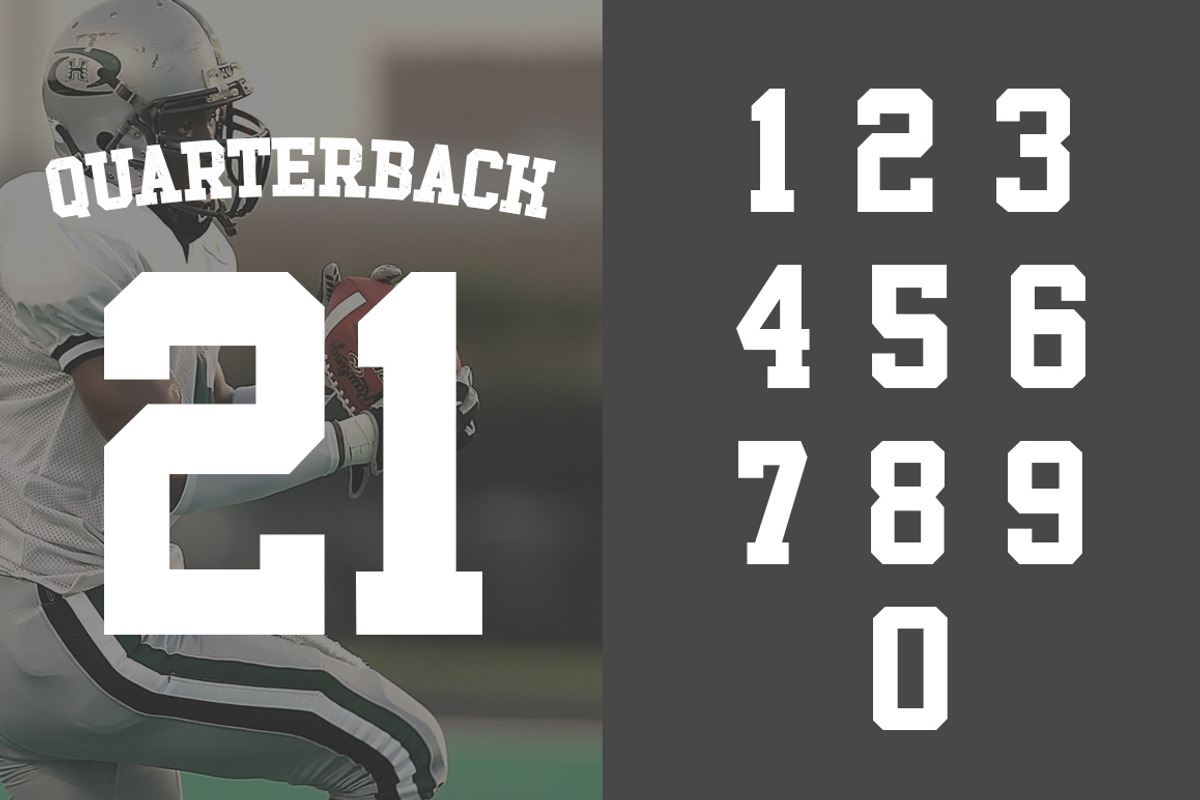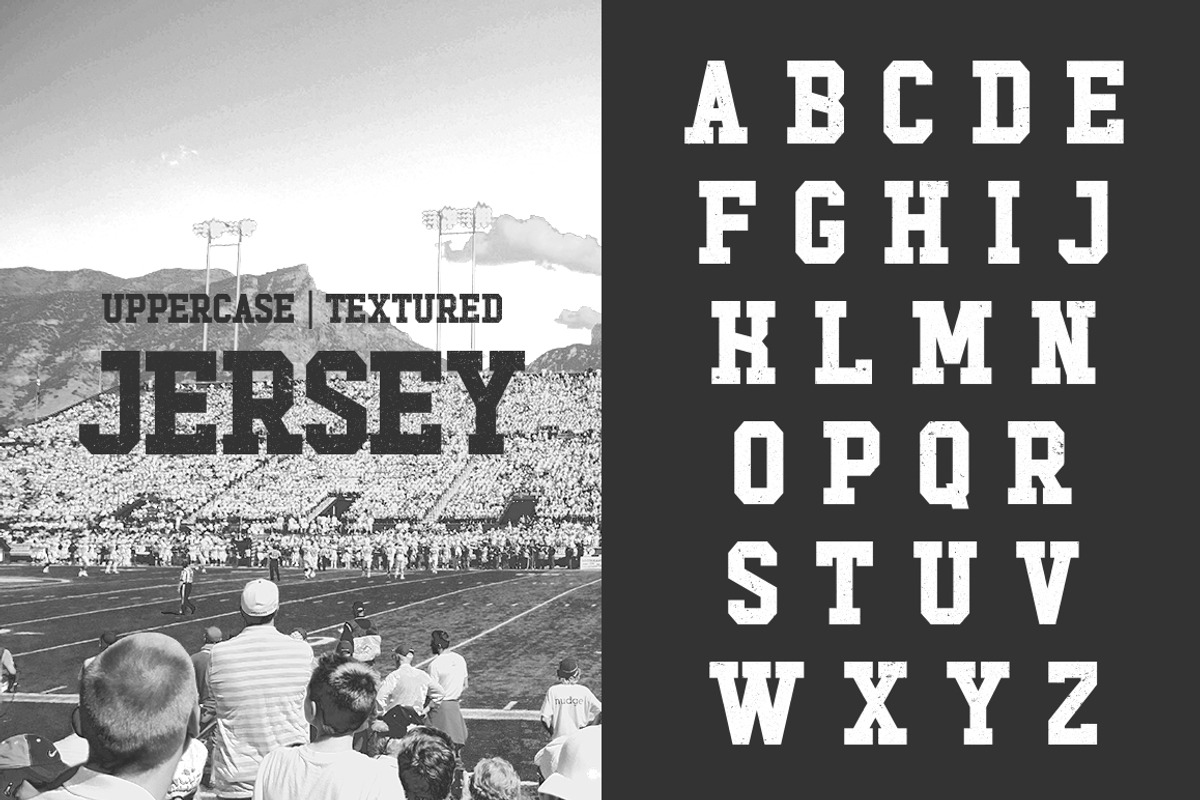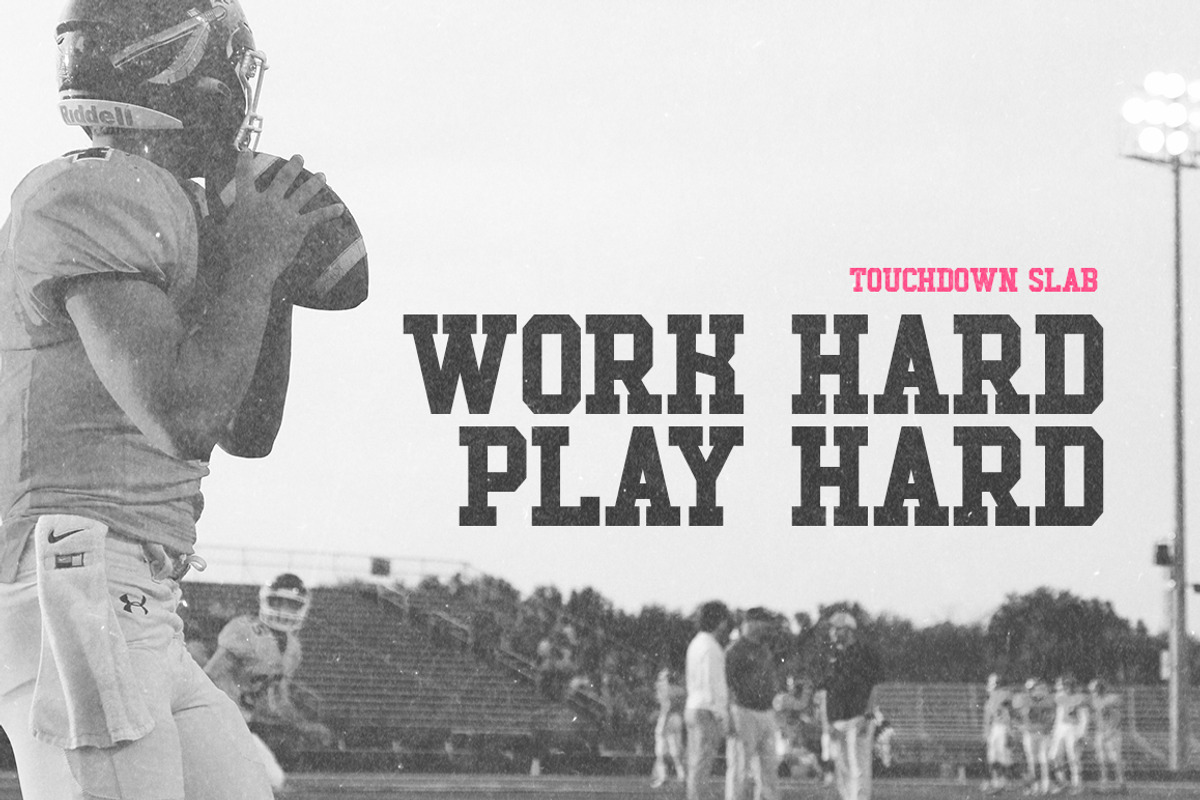
Touchdown Slab Font
Touchdown! A ballin’ new font that has all the excitement of the game in its letters. The lowercase is clean and neat and the uppercase is grainy and textured just like those retro photos of you at the ball games with your pop! Enjoy!